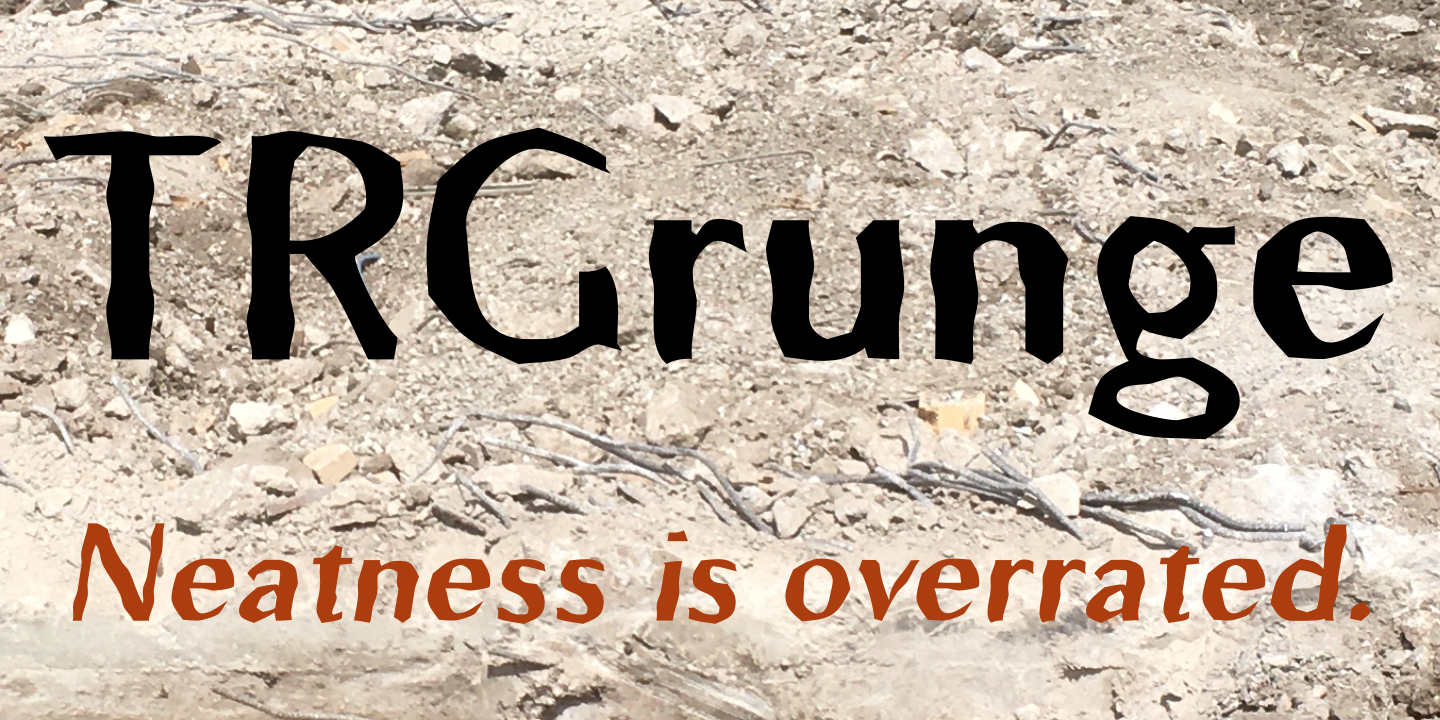
TRGrunge Font is perfect for urban street art, punk rock graphics, alternative music promotions, rebellious branding, distressed designs, underground publications, edgy advertising campaigns, and raw display typography.
What makes TRGrunge Font exciting is its rebellious urban character that embodies raw street culture and punk aesthetics through distressed letterforms and underground appeal. This edgy typeface features weathered construction, gritty details, and anti-establishment personality that captures the essence of grunge movement and street rebellion, making it ideal for projects seeking to communicate authenticity, counterculture values, and raw artistic expression with uncompromising edge.
The TRGrunge Font family includes Regular and Bold weights, each maintaining the characteristic grunge distression and underground authenticity that define this distinctive typeface's rebellious personality and street culture appeal.
TRGrunge Font Free Download offers designers access to a typeface that masterfully channels the spirit of underground culture and artistic rebellion. This raw font brings authentic street aesthetics to contemporary projects, making it essential for alternative music labels, underground artists, and rebellious brands targeting audiences who value authentic counterculture expression and artistic independence. The font's distressed construction and gritty details ensure immediate recognition of authenticity and rebellion while its distinctive character creates powerful connections among individuals embracing alternative lifestyles. Whether designing punk concert posters, street art campaigns, or alternative brand communications, this font delivers the grunge authenticity and rebellious spirit that underground audiences expect. Its counterculture foundation and raw aesthetic make it indispensable for projects celebrating artistic rebellion, underground music culture, and the enduring power of authentic self-expression, ensuring communications resonate with audiences who reject mainstream conformity in favor of genuine artistic freedom and cultural authenticity.